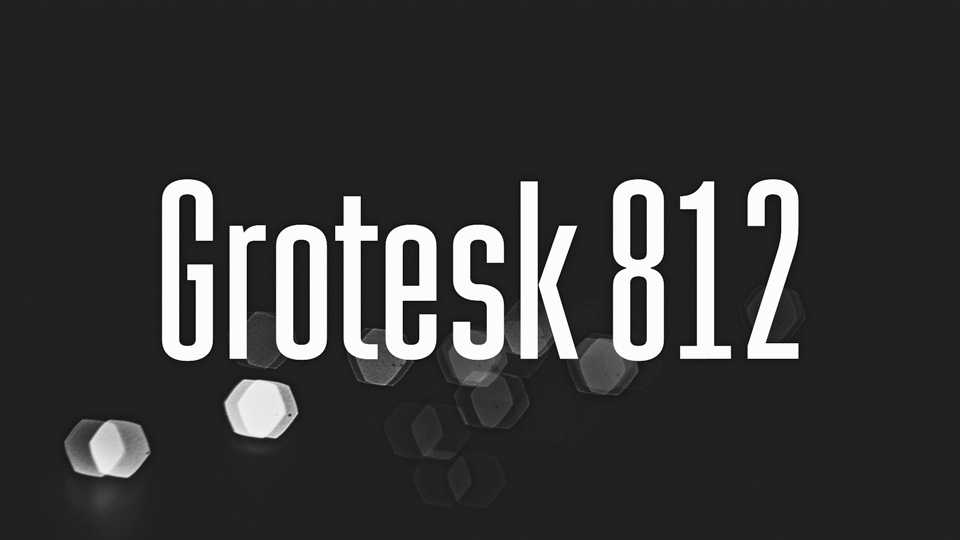
Download Grotesk 812 font, an ultra condensed grotesque typeface. Grotesk 812 font works best for headlines, posters and short texts.
Designer: Jens Kutilek